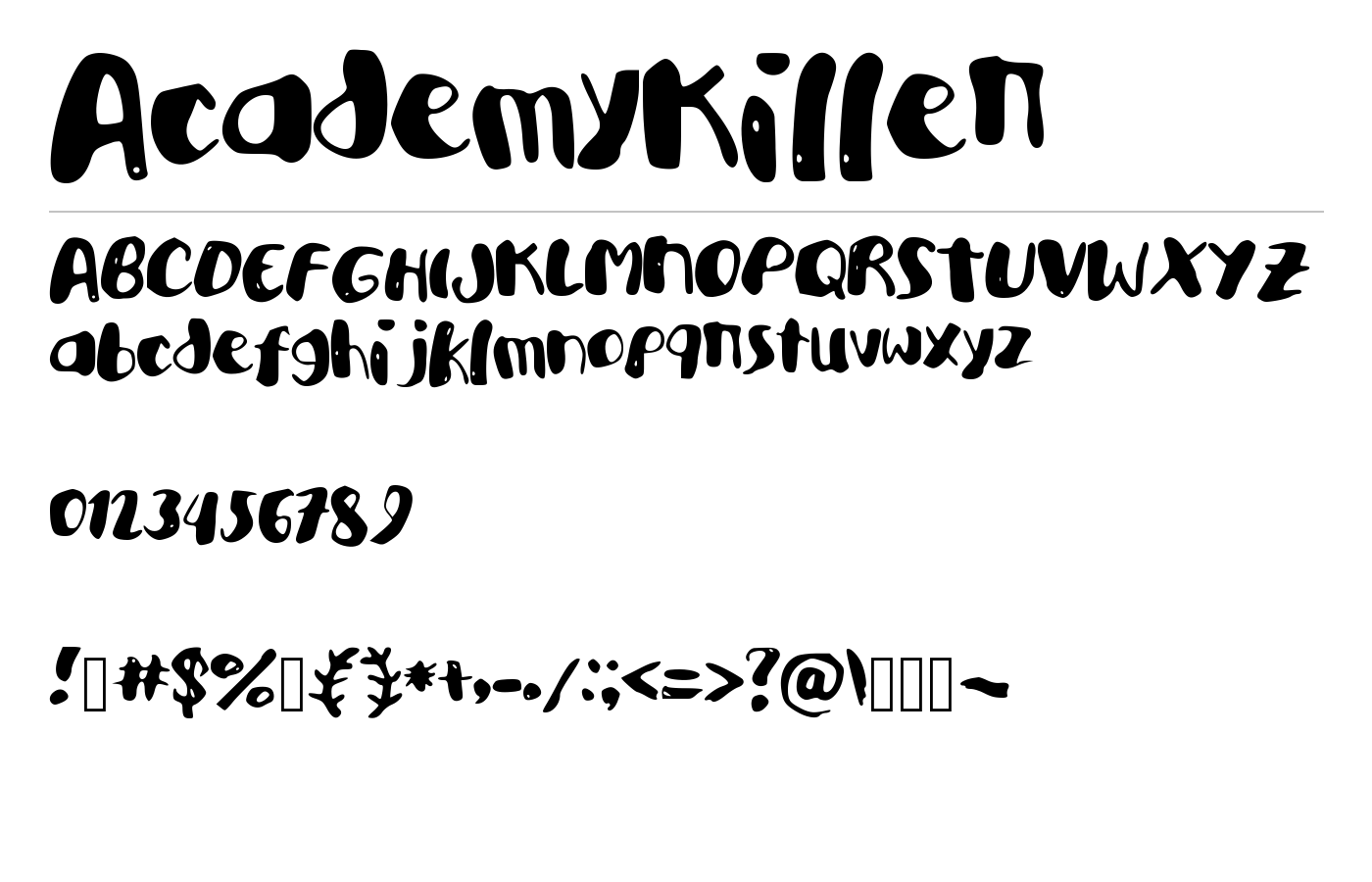
AcademyKiller is a whimsical, hand-drawn display font with bold, irregular shapes and playful letterforms that create a quirky, lively personality. Its varying stroke widths and organic curves give it a casual, artistic feel, making it ideal for creative projects, posters, or branding that aims to stand out with a fun, informal vibe. This font works best at larger sizes for headlines and decorative uses where its unique charm can shine.
AcademyKiller Font